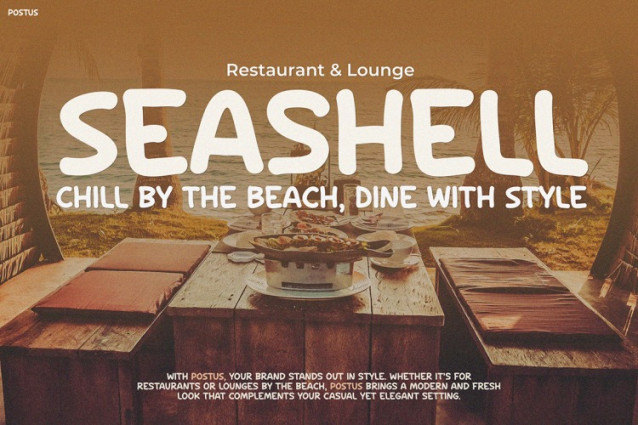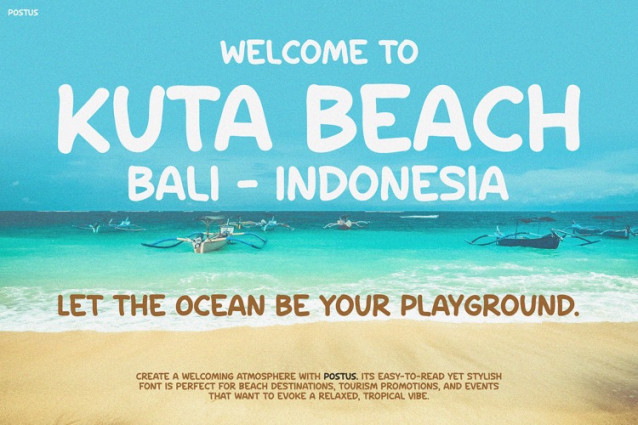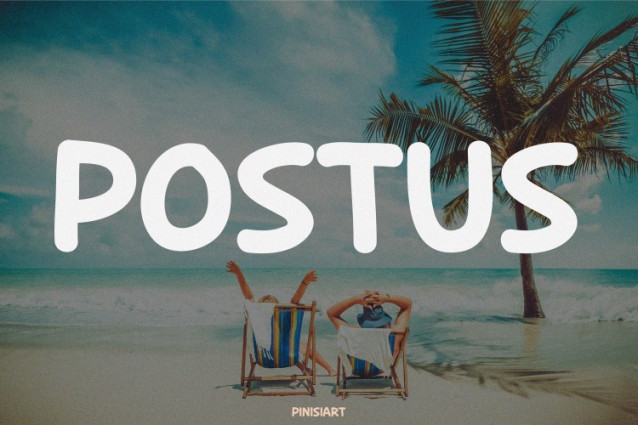
Postus Playful Font
Postus Playful Font – This unique typeface captures the very essence of joy, sunshine, and relaxation. With its rounded, hand-lettered aesthetic, POSTUS stands out thanks to a welcoming and vibrant personality that instantly evokes the warmth of beach trips, hangouts with friends, and tropical escapes. Each letterform feels casual yet confident—playful but never messy—making it ideal for creators who want to infuse a breezy, youthful tone into their work. As a result, it becomes a go-to choice for projects that aim to feel both energetic and approachable. Whether you’re designing a summer campaign, a beach destination promo, or even a cozy café menu, POSTUS effortlessly pulls viewers in with its friendly attitude and clear readability.